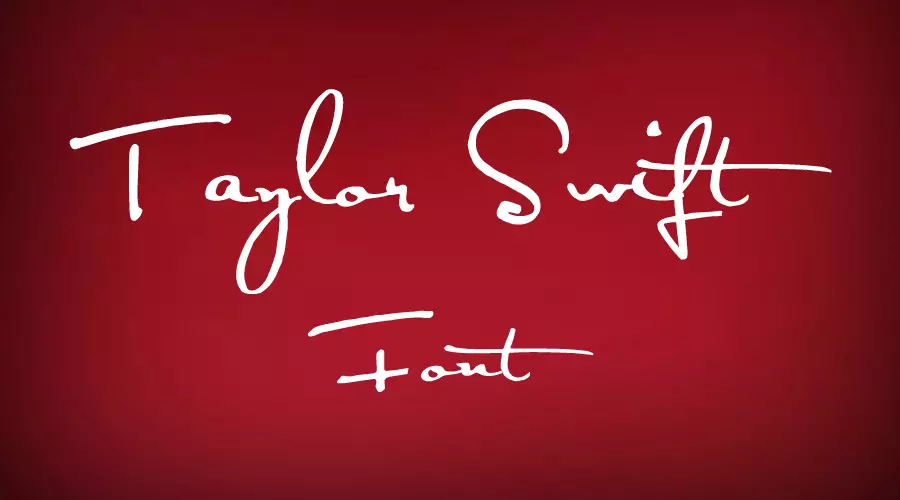
The Taylor Swift font is the signature of Taylor Swift that was used in her debut album art as a logo.
Taylor Swift Font
The font used for Taylor Swift’s signature is called Satisfaction Font. Swift first gained fame with the release of her debut studio album, Taylor Swift, in 2006, and the cursive lettering of her signature on the cover of the album has become very popular. People are now searching for her signature typeface using the search term “Taylor Swift Font.”
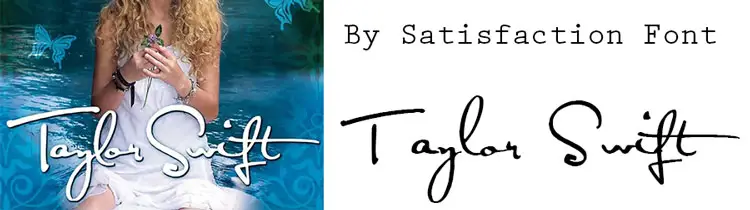
Satisfaction is a script font created by Andrew Leman and published in 2001. It’s very similar to the logo from Taylor Swift’s debut album. The font has 182 characters and 184 glyphs. It is a free font and has a relatively complete character set.
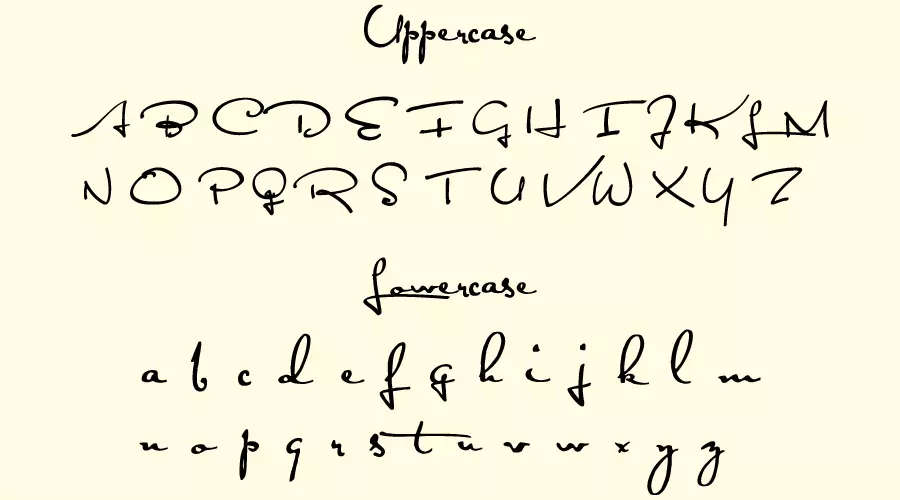
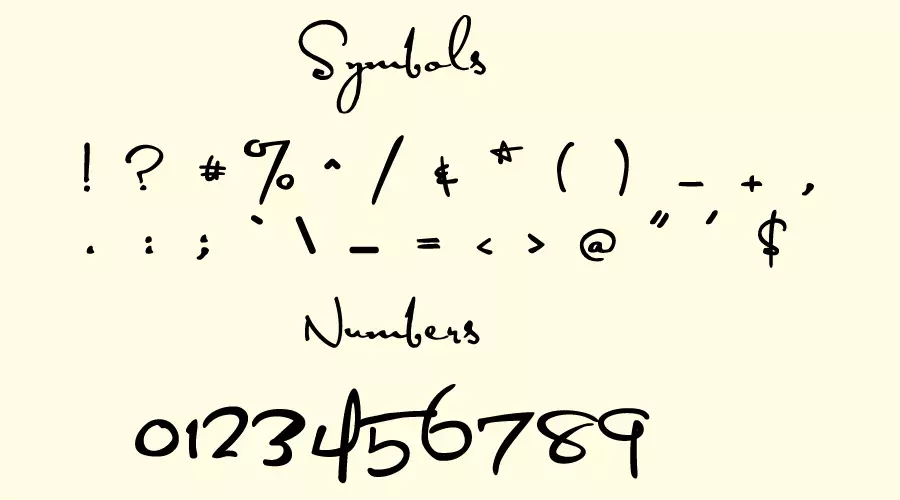
The font used in her signature helps contribute to the overall aesthetic and branding of her music. Fans and designers can easily access and use the Satisfaction font to create their own designs inspired by Taylor Swift’s work.
Fearless (Taylor’s Version)” font is similar to the Carla Sans Light font. But the 2008 Fearless album cover font matches fonts like Media Gothic and Satisfaction.